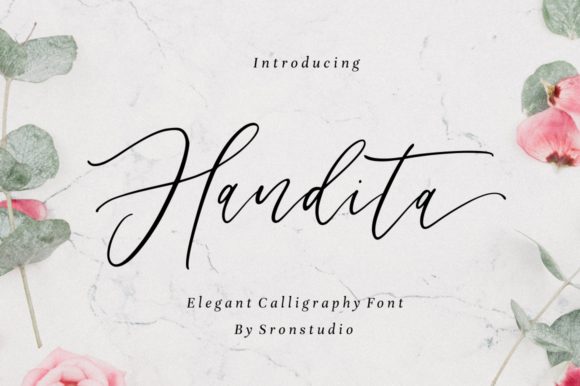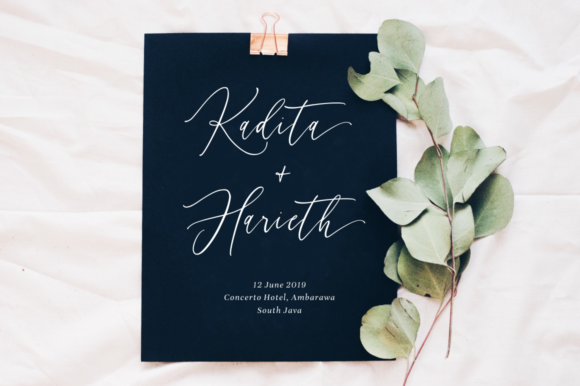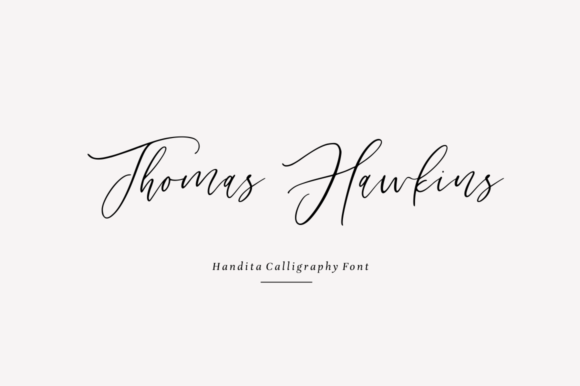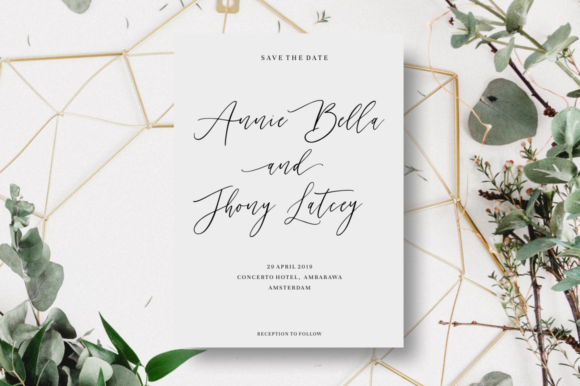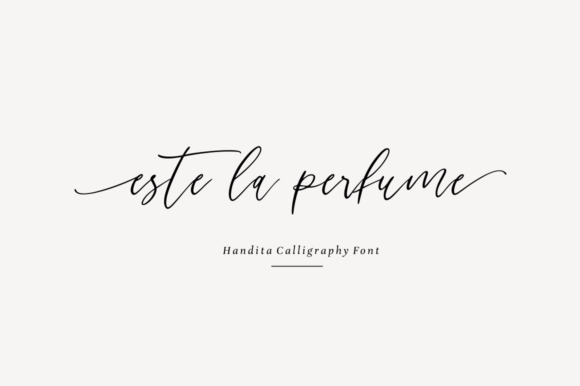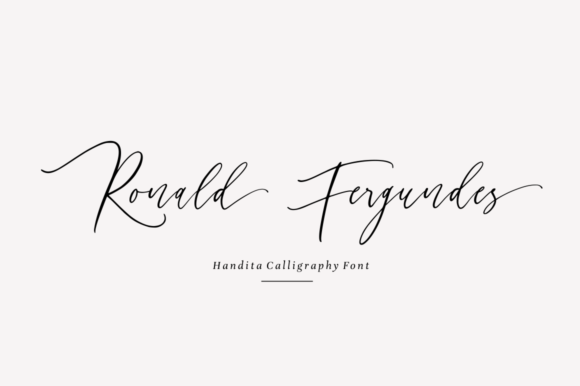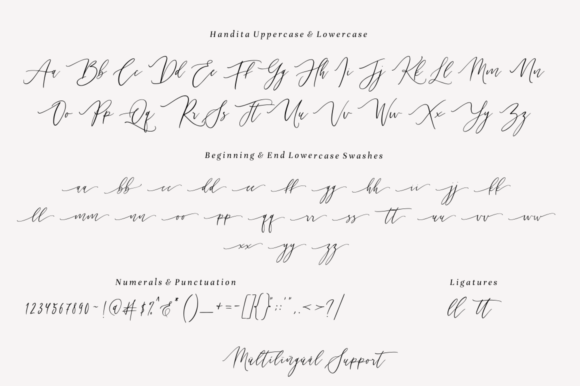
Handita Font
About Handita Font
Updating classic calligraphy with a contemporary twist, Handita is an incredible handwritten font with heaps of personality! Fall in love with this light and striking script.